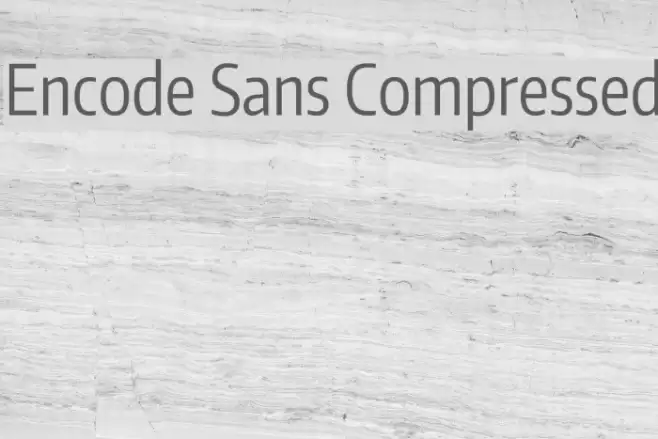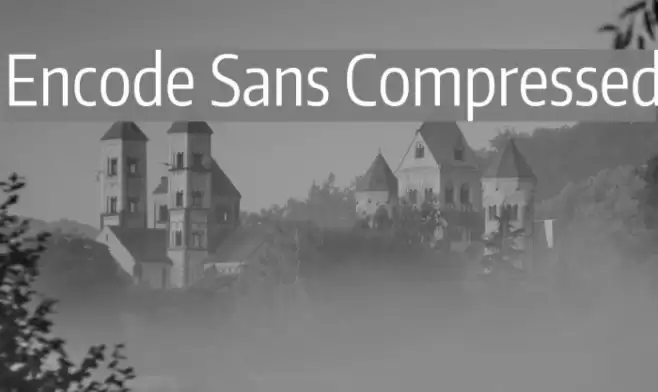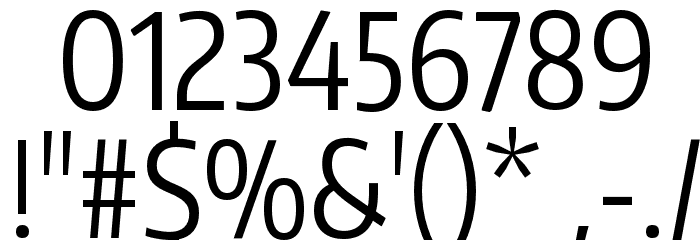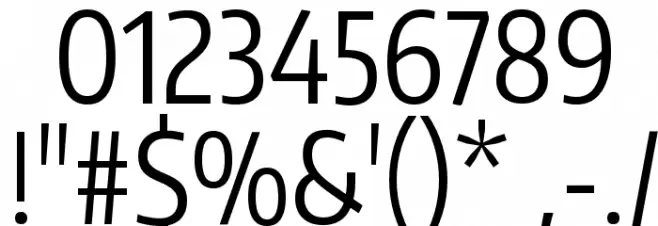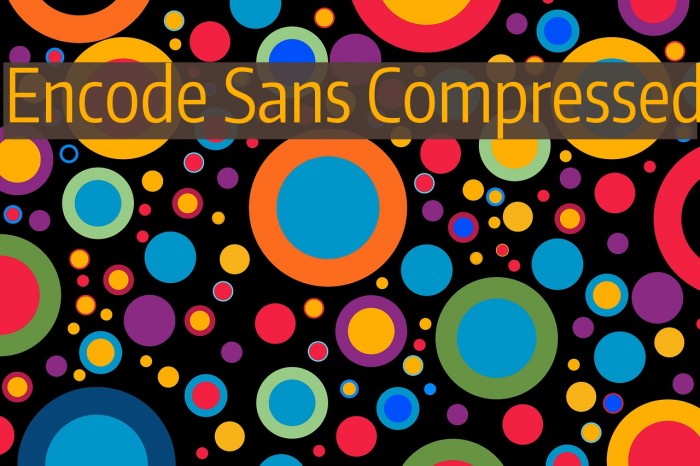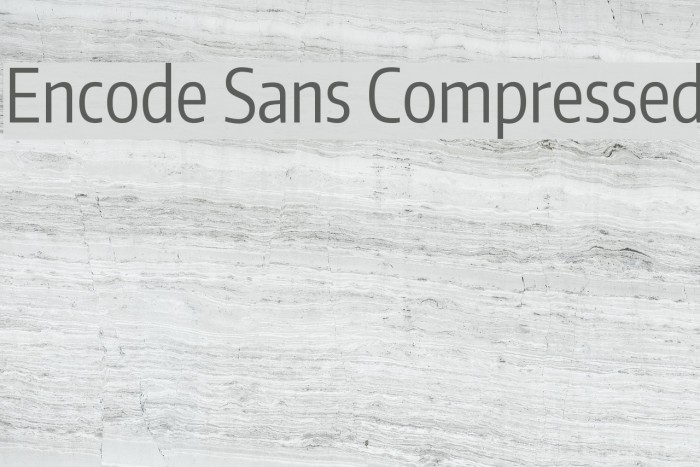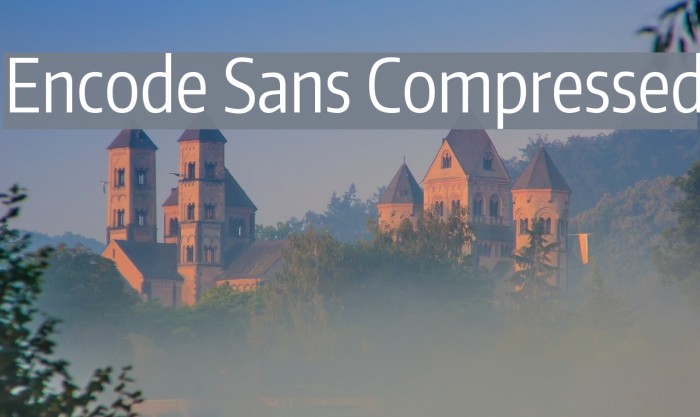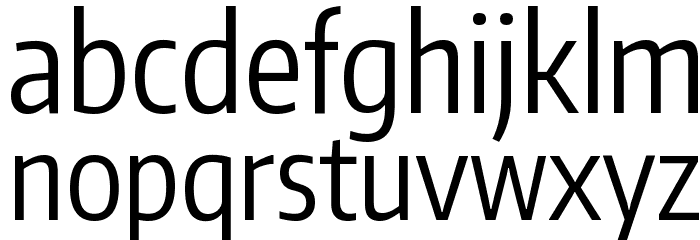
Encode Sans Compressed Font
Encode Sans Compressed Description
This font features a clean and modern sans-serif style with a compressed width, making it ideal for space-saving designs. The characters are uniform and streamlined, with a consistent stroke width that provides a sleek and professional appearance. The uppercase and lowercase letters are well-proportioned, ensuring readability even at smaller sizes. The numerals are clear and distinct, while the special characters maintain the overall aesthetic of the font. Its simplicity and clarity make it versatile for various design applications.
A modern, compressed sans-serif font with a clean and uniform appearance from Uncategorized fonts.